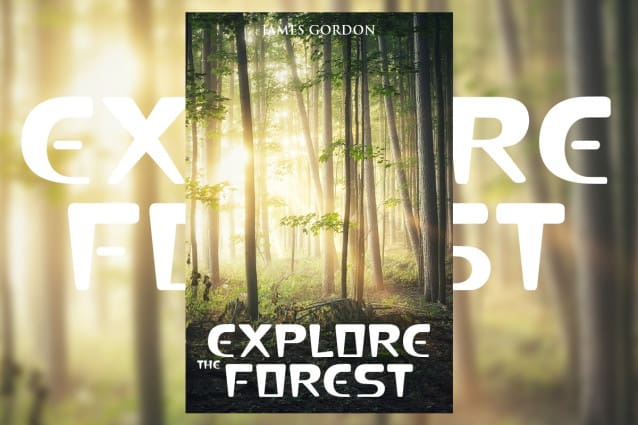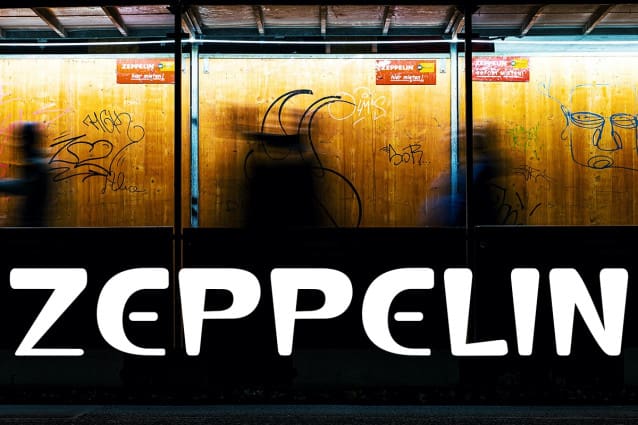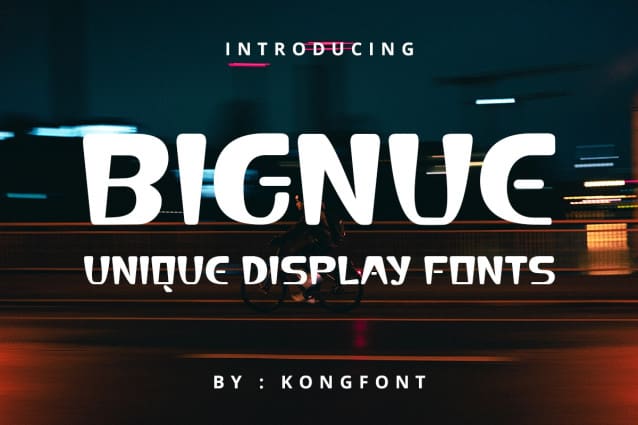
Bignue Display Font
Bignue Display Font – Modern Display Font is a modern font with a unique and eye-catching look. The form is simple without decorations but has volume on the inside.
Bignue Display Font – Modern Display Font evokes a sense of familiarity and freedom in anyone who reads it. Not only that, this font is legible, meaning that each letter is easily distinguished and this is one of the best choices for placing on signage, posters, signage, and art boards.
Combined with the right colors and themes, this font can help you create authentic and unique paintings and murals. Bignue Display Font – Modern Display Font can be one of the best graffiti fonts. For small print jobs, this font can be used for stickers and small merchandise from amusement parks, such as; key chains, fridge magnets, stickers, shirts, jackets, hats, etc.